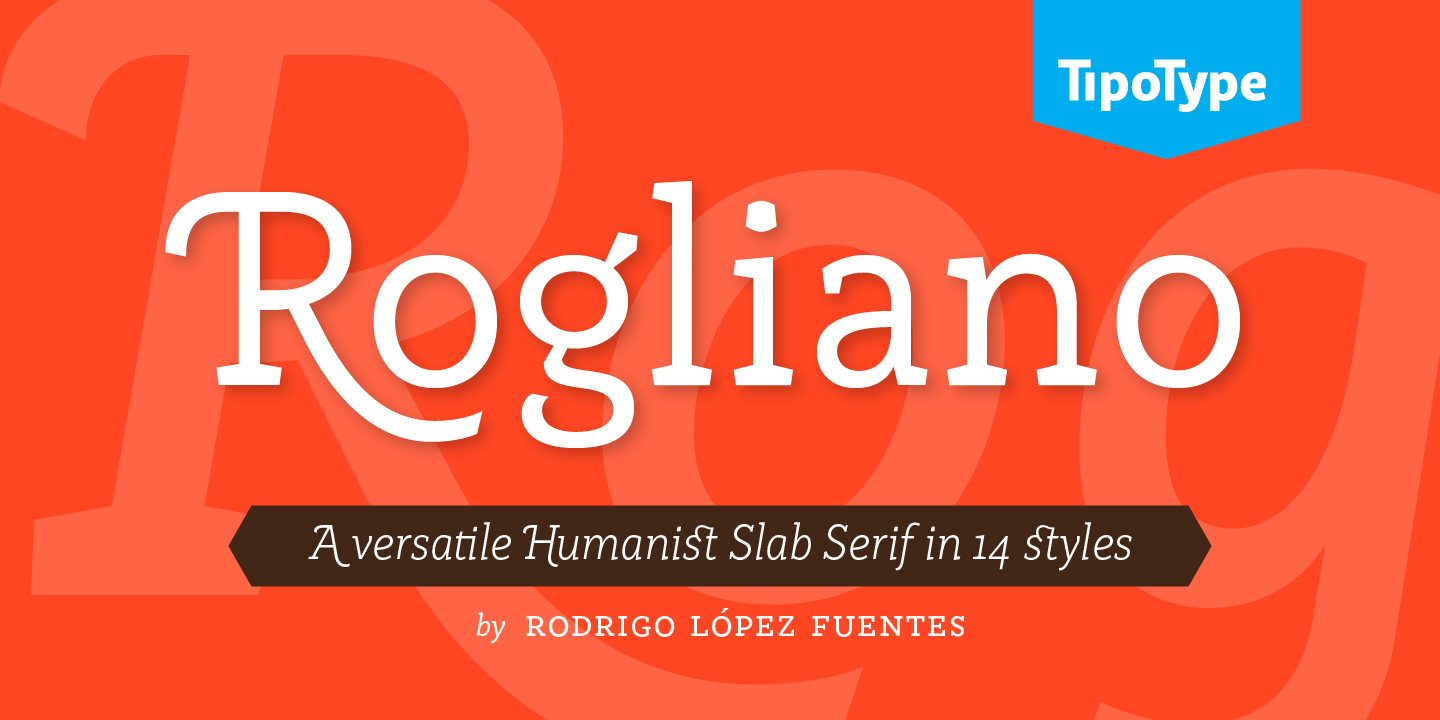
The Rogliano Font is perfect for Italian restaurant branding, Mediterranean cuisine menus, rustic vineyard signage, artisan food packaging, traditional bakery materials, authentic trattoria designs, wine bottle labels, cultural festival posters, heritage brand logos, and charming countryside advertisements.
What makes the Rogliano Font exciting is its captivating ability to evoke the warm Mediterranean spirit and rich cultural heritage of Italian craftsmanship through every beautifully crafted letterform. This enchanting typeface features elegant curves, traditional proportions, and artisanal character variations that instantly transport viewers to sun-drenched Italian villages where time-honored traditions and passionate artistry create authentic cultural experiences. Each letter embodies the essence of Italian elegance and Old World charm.
The Rogliano Font family includes regular, italic, bold, and decorative versions, along with Mediterranean-inspired ornaments, traditional flourishes, and cultural symbols that enhance its authentic Italian appeal across various heritage design applications.
Whether you're creating authentic Italian brand identities or designing culturally rich restaurant materials, Rogliano Font Free Download delivers genuine Mediterranean charm and traditional Italian sophistication. Its masterfully crafted letterforms ensure excellent readability while maintaining that essential Old World character that speaks to audiences seeking authentic cultural experiences. The font's special features include contextual alternates, traditional ligatures, and cultural variations that automatically enhance heritage typography standards. Italian restaurant owners and Mediterranean brand creators consistently choose this font for projects requiring genuine cultural authenticity and traditional Italian elegance. The Rogliano Font transforms ordinary text into warm Mediterranean expressions, making it an invaluable treasure in any designer's cultural typography collection.